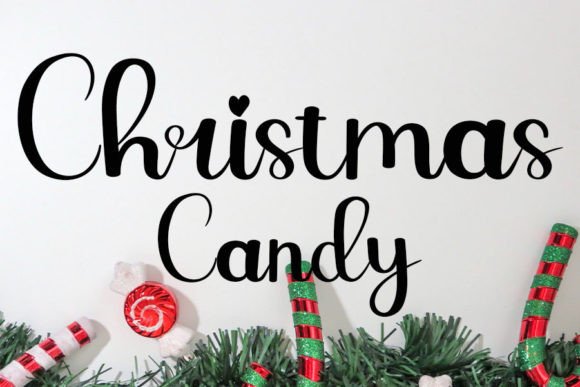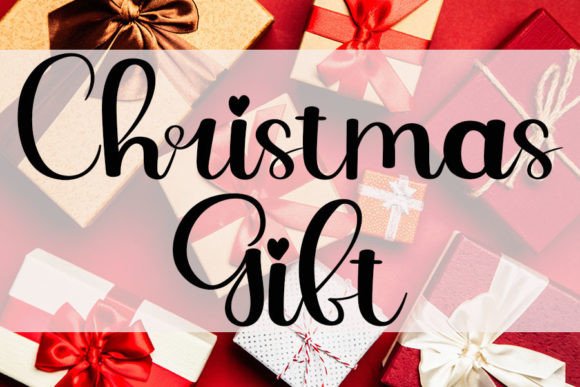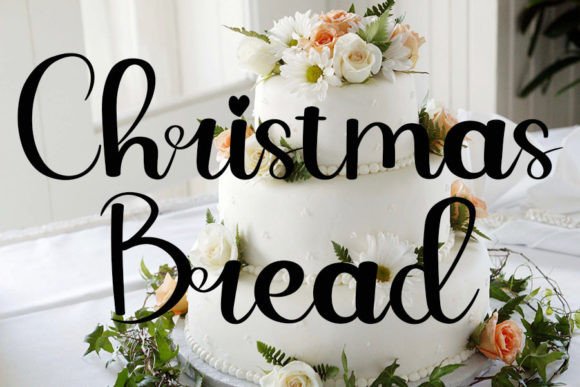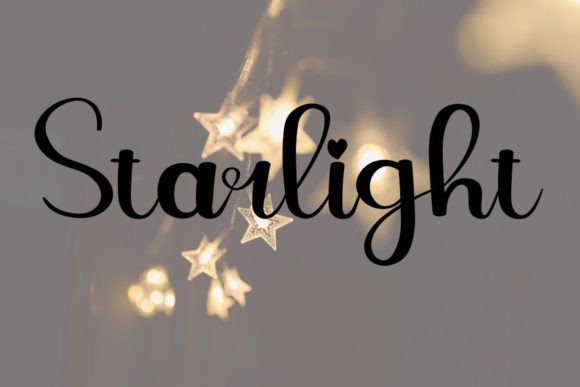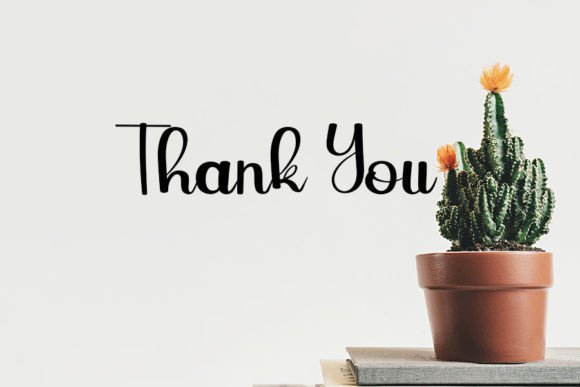
Christmas Font
“Christmas” is a neat and beautiful handwritten font that embodies elegance and charm, making it a perfect choice for your favorite design projects. This font is characterized by its clean and elegant touch, and it possesses a distinct and timeless style that can help you create spectacular designs.
The appeal of “Christmas” lies in its ability to convey a sense of refinement and timelessness through its beautifully crafted characters. Its handwritten style adds a touch of elegance and grace to your design projects, making them visually captivating and classically appealing.
Whether you’re working on branding, invitations, quotes, posters, social media graphics, logos, or any project that requires a neat and elegant touch, “Christmas” is the typeface that can bring your ideas to life.
In the world of design, creating an impression of sophistication and timeless beauty is essential for certain projects, and “Christmas” excels in this regard. It ensures that your projects not only look visually appealing but also convey a feeling of enduring style and elegance, leaving a lasting and stylish impact on your audience.
Embrace “Christmas” with enthusiasm and let it become a valuable asset in your creative toolkit, where it will shine as a font that adds an elegant and timeless touch to your projects, making them more visually captivating and sophisticated, resulting in designs that are truly spectacular.